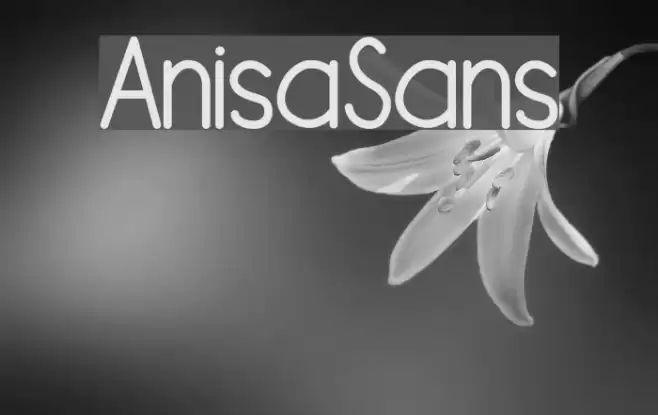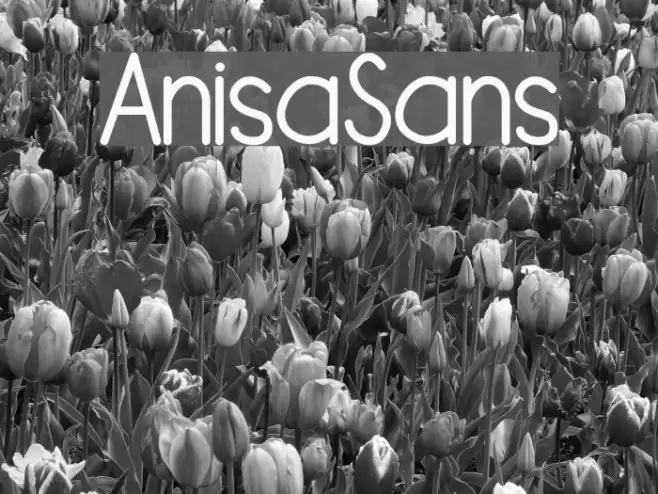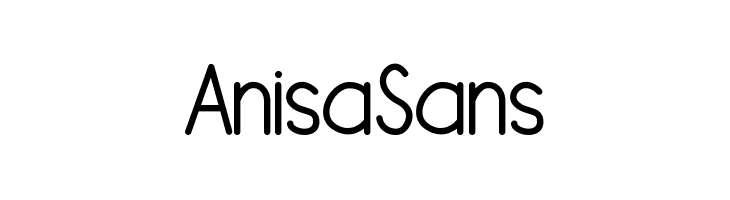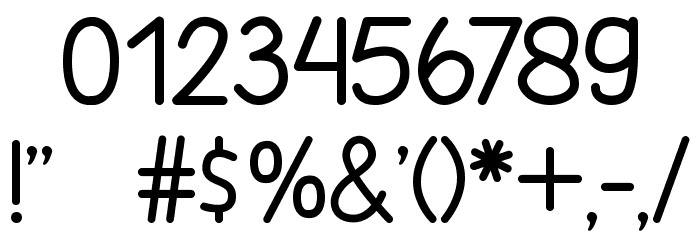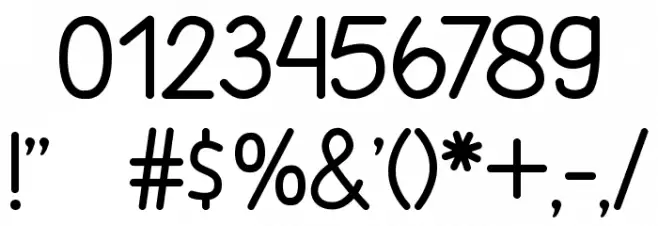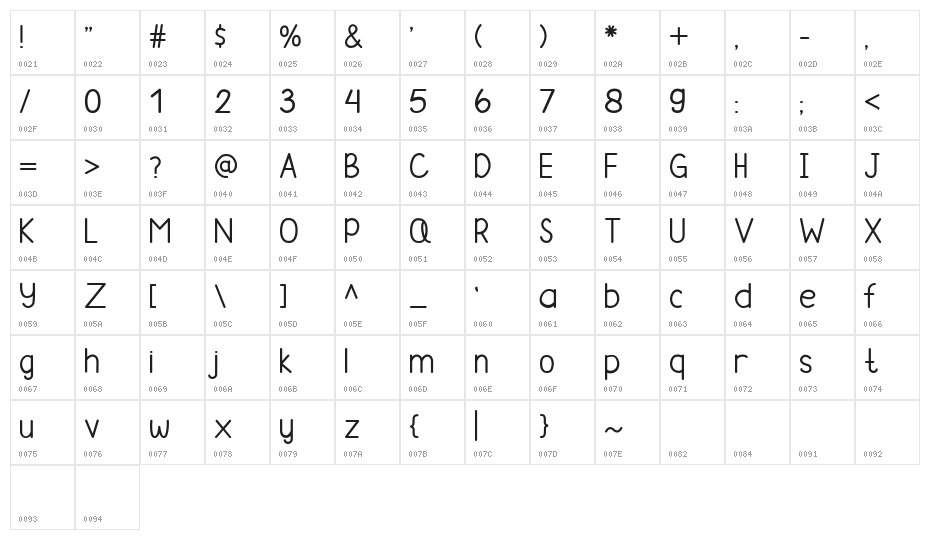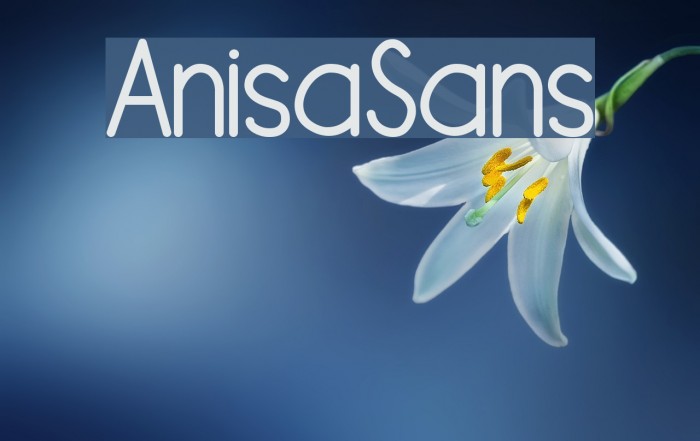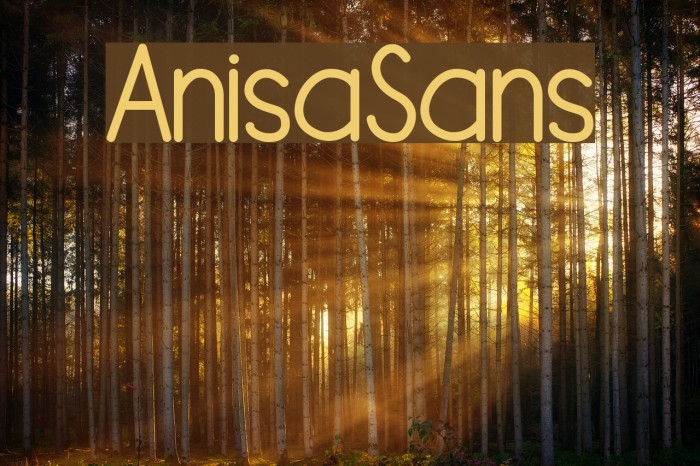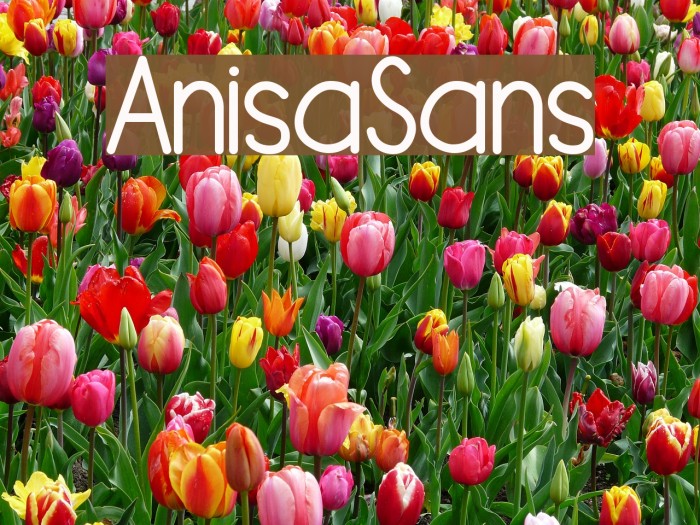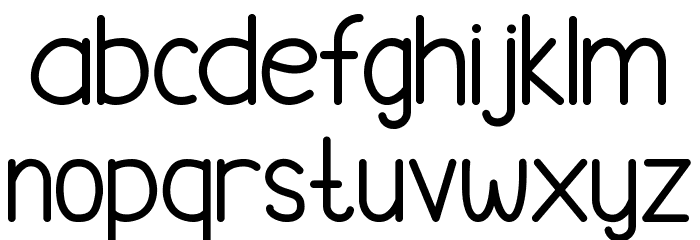
AnisaSans Font
AnisaSans Description
This font features a clean and modern sans-serif style with rounded edges, giving it a friendly and approachable appearance. The characters are evenly spaced with a consistent stroke width, contributing to its legibility. The uppercase letters are slightly taller than the lowercase, maintaining a balanced and harmonious look. The numerals are clear and distinct, matching the overall aesthetic of the alphabet. Special characters are well-integrated, ensuring versatility in various design contexts. This font's simplicity and clarity make it suitable for a wide range of applications.
A modern, rounded sans-serif font with a friendly and approachable style from Handwritten fonts.
- Proposed Projects: Ideal for branding, web design, children's books, and educational materials.